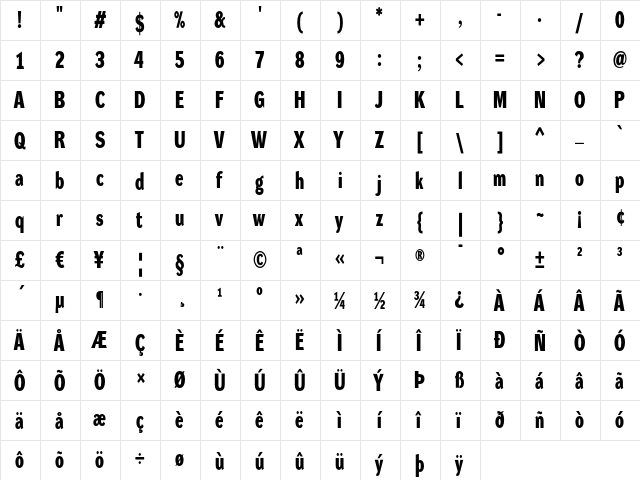
DynaGrotesk DC Bold
Design Context for DynaGrotesk DC Typeface
DynaGrotesk DC has the quiet confidence of well-executed sans-serif typography: versatile, unobtrusive, and dependable at any size. The heavy weight commands attention and anchors typographic hierarchies.
A strong choice for UI design, app interfaces, bold signage, and corporate brand systems.
Font Pairing: Use DynaGrotesk DC for headlines alongside a lighter-weight sans or serif for body copy to establish clear visual hierarchy.
Pro Tip: Pair DynaGrotesk DC with a display or serif font for headlines — its neutral character makes it an excellent supporting player in complex typographic systems.